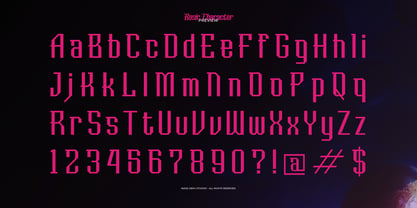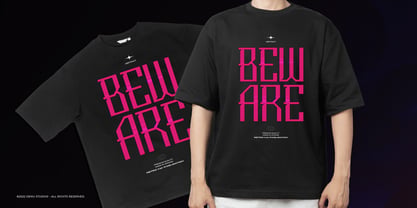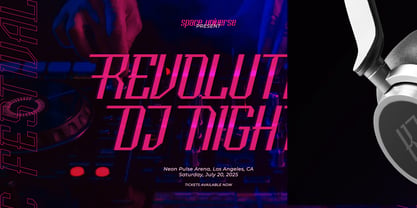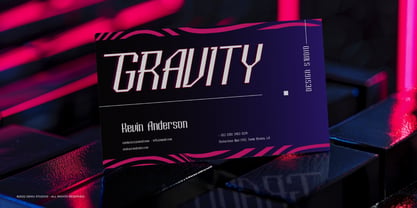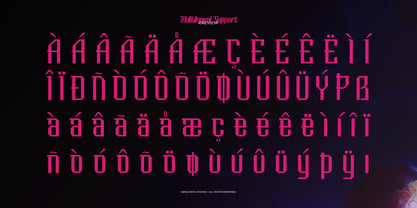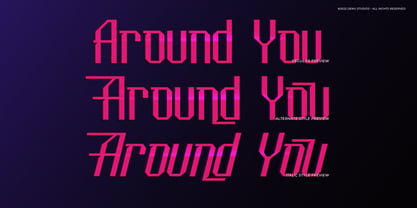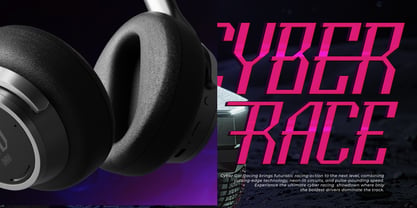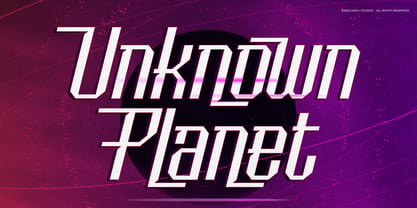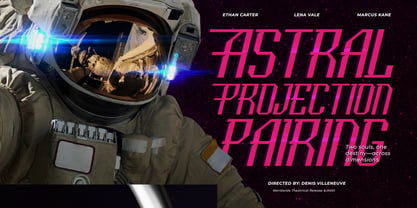
Galaxy Aura
by Denustudio
The Galaxy Aura Font Family was designed by Dede Nugraha and published by Denustudio. Galaxy Aura contains 2 styles and family package options. More about this family
Galaxy Aura | Cyber Condensed Font, from Denustudios, suitable for any projects such as: logos, branding projects, homeware designs, product packaging, mugs, quotes, posters, shopping bags, t-shirts, book covers, name card, invitation cards, greeting cards, label, photography, watermark, special events, and all your other lovely projects that need Cyber Condensed Font a taste.
• Regular and Italic
• Standard glyphs
• Alternate and Ligature
• Fonts include multilingual support
Designers: Dede Nugraha
Foundry: Denustudio